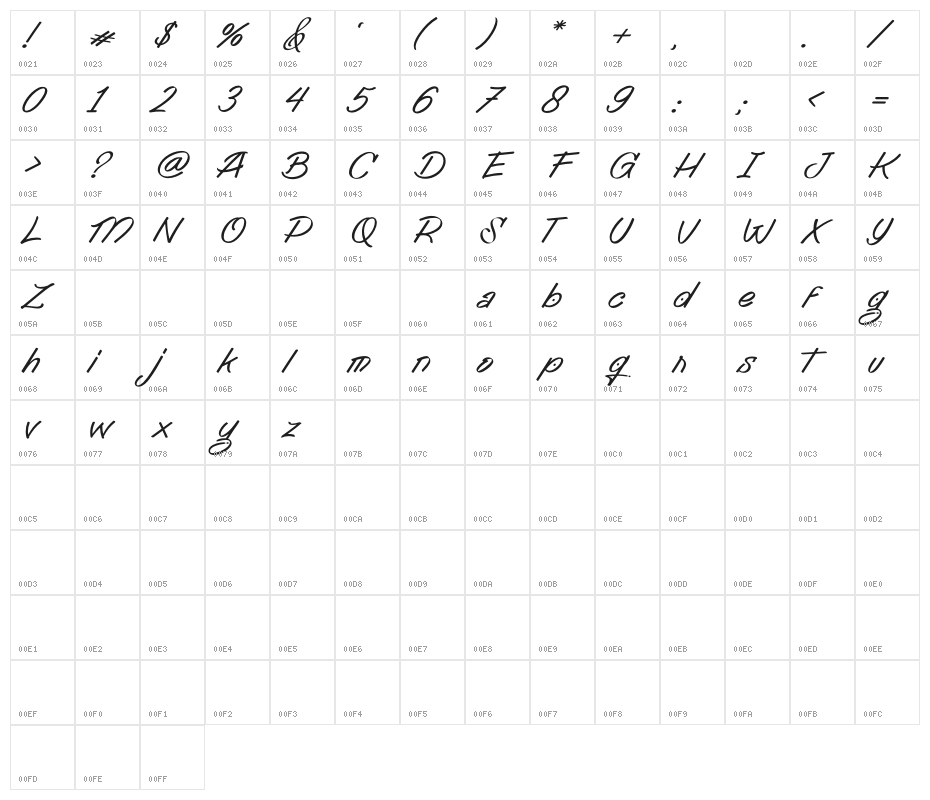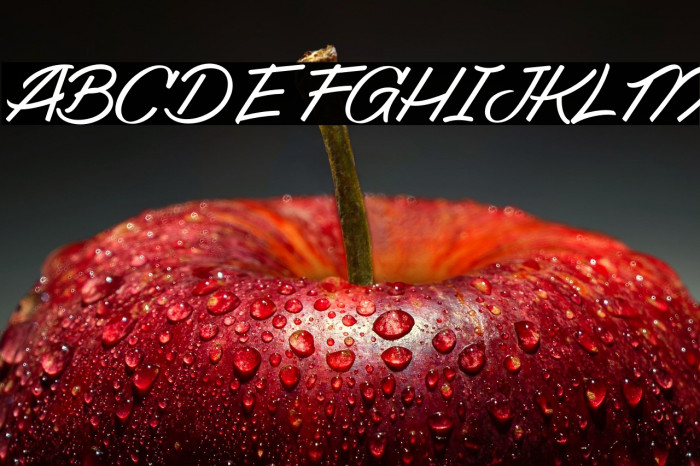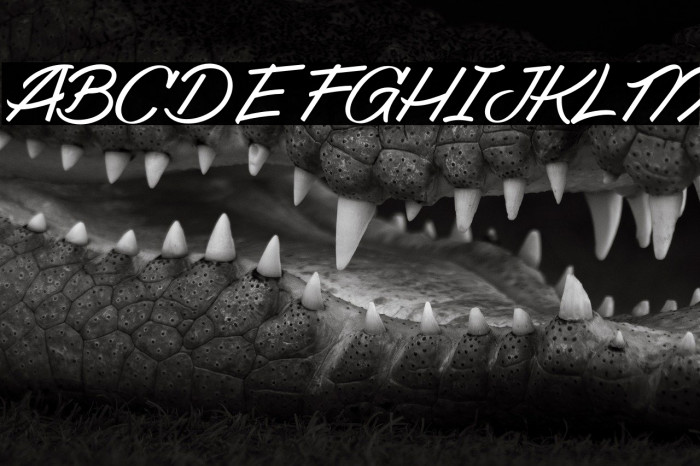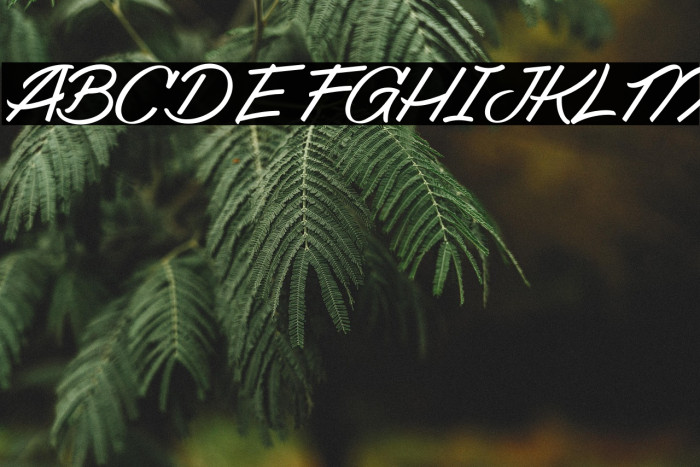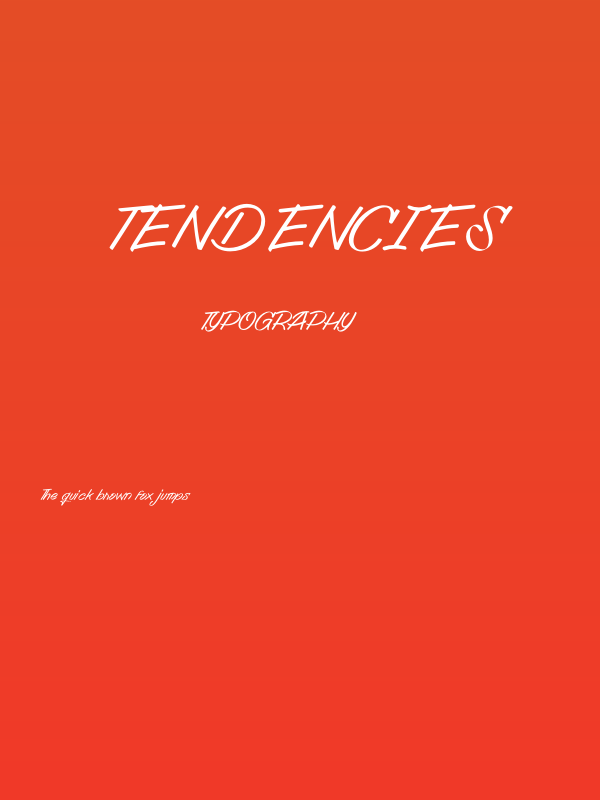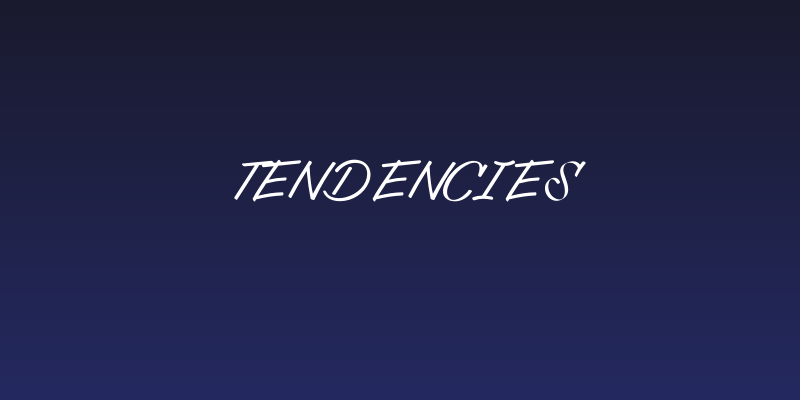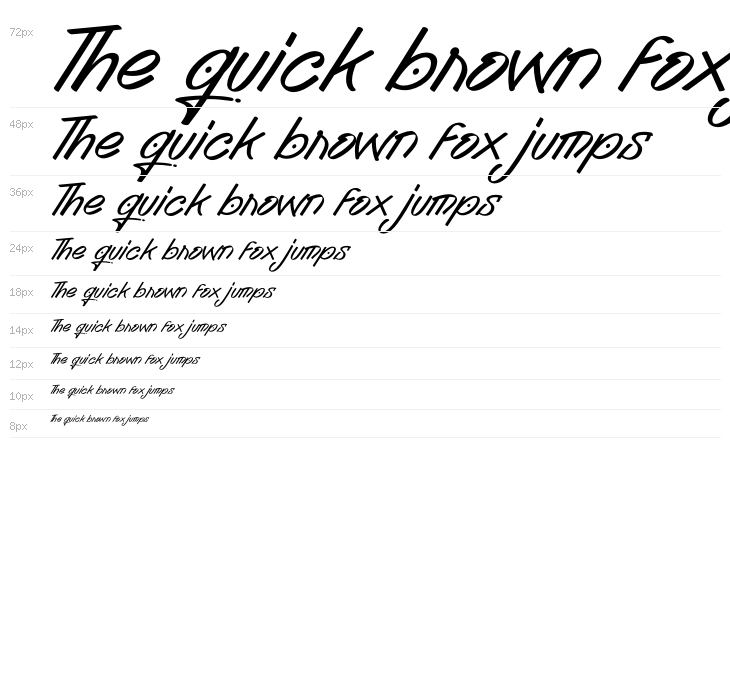
Tendencies Font
Tendencies Description
This font features a dynamic and flowing script style, characterized by its elegant, cursive letterforms. The uppercase letters exhibit a graceful slant with smooth, continuous strokes, while the lowercase letters maintain a consistent fluidity, enhancing readability. The numerals and special characters are crafted with the same attention to detail, ensuring a cohesive appearance across all elements. The font's overall aesthetic is both sophisticated and approachable, making it suitable for a variety of design applications. Its handwritten quality adds a personal touch, ideal for projects that require a humanistic feel.
| Overall Style | Elegant, Handwritten |
| Use Case | Logos, Invitations, Personal Branding |
| Proposed Projects | Ideal for wedding invitations, greeting cards, personal branding, and elegant packaging designs. |